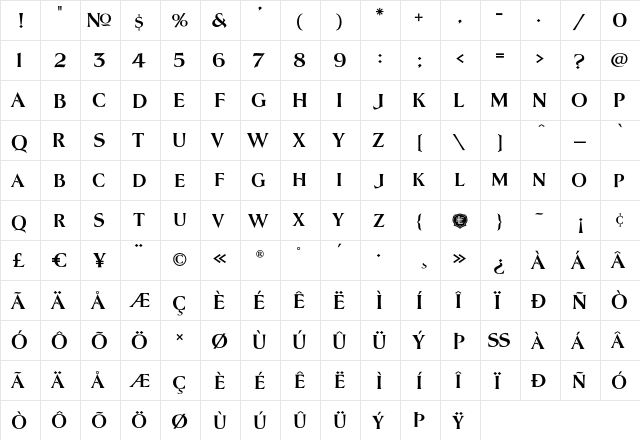
LHF Lakeside Regular 1 Regular
| Foundry | Dave Correll for Letterhead Fonts |
| Designer | Dave Correll |
Design Context for LHF Lakeside Regular 1 Typeface
LHF Lakeside Regular 1 takes a measured approach to typography — its balanced proportions and neutral character make it a reliable workhorse for both digital and print work.